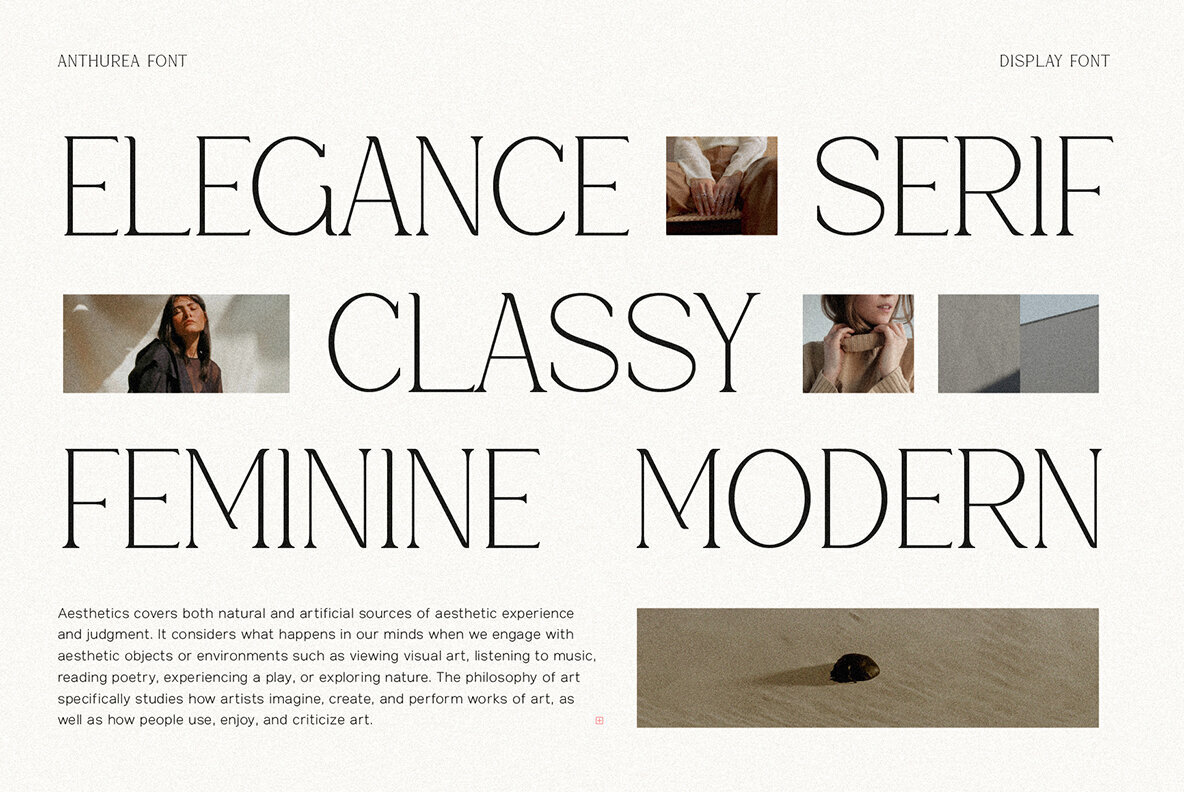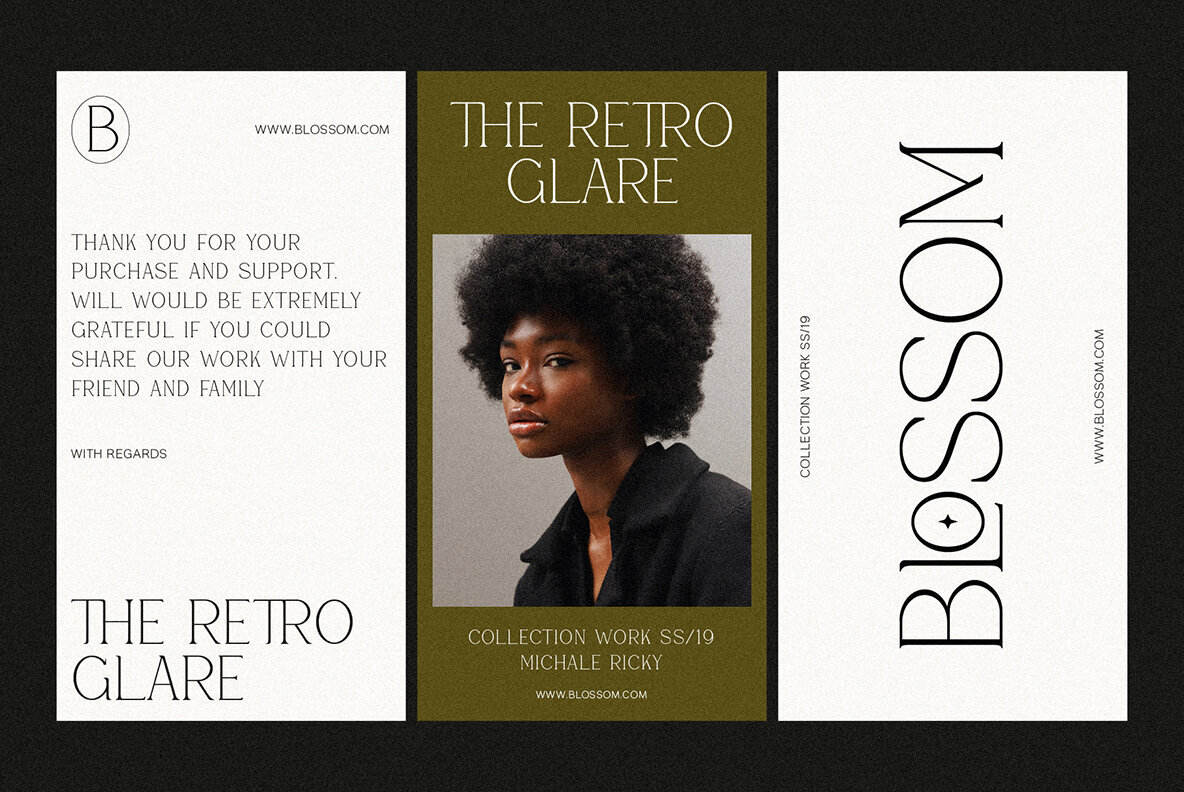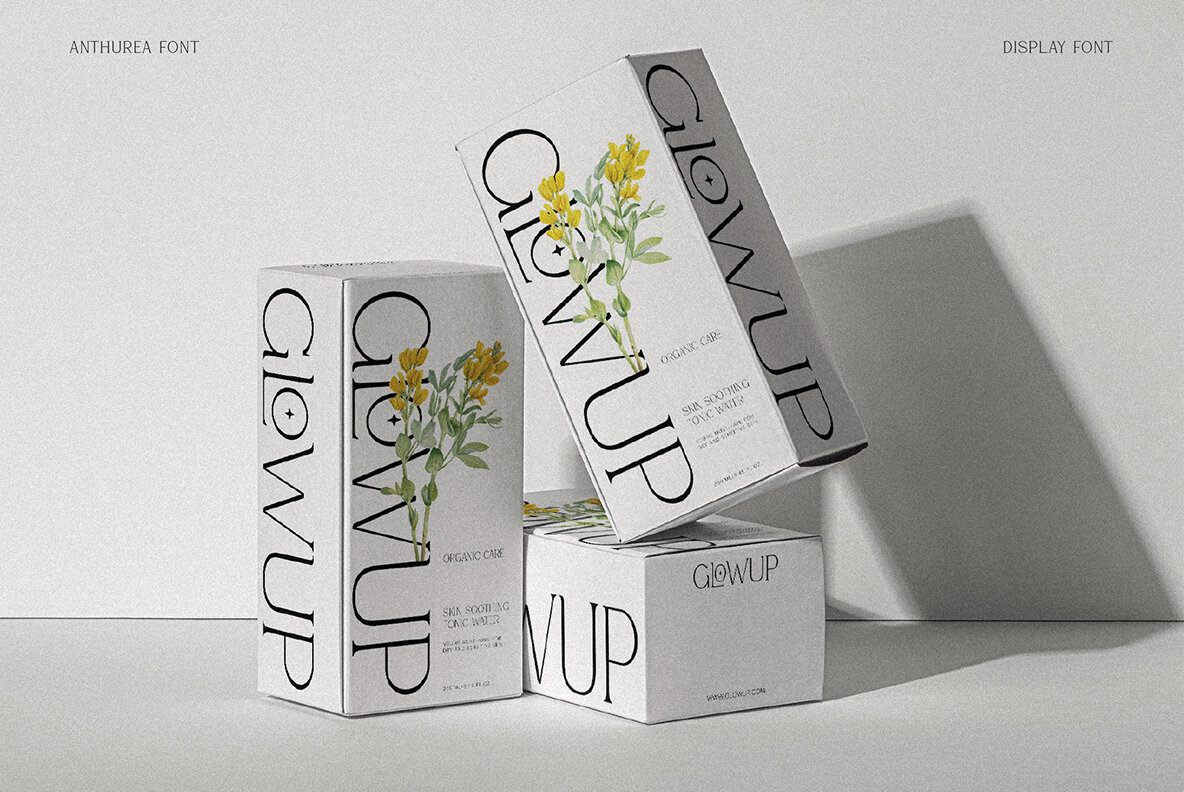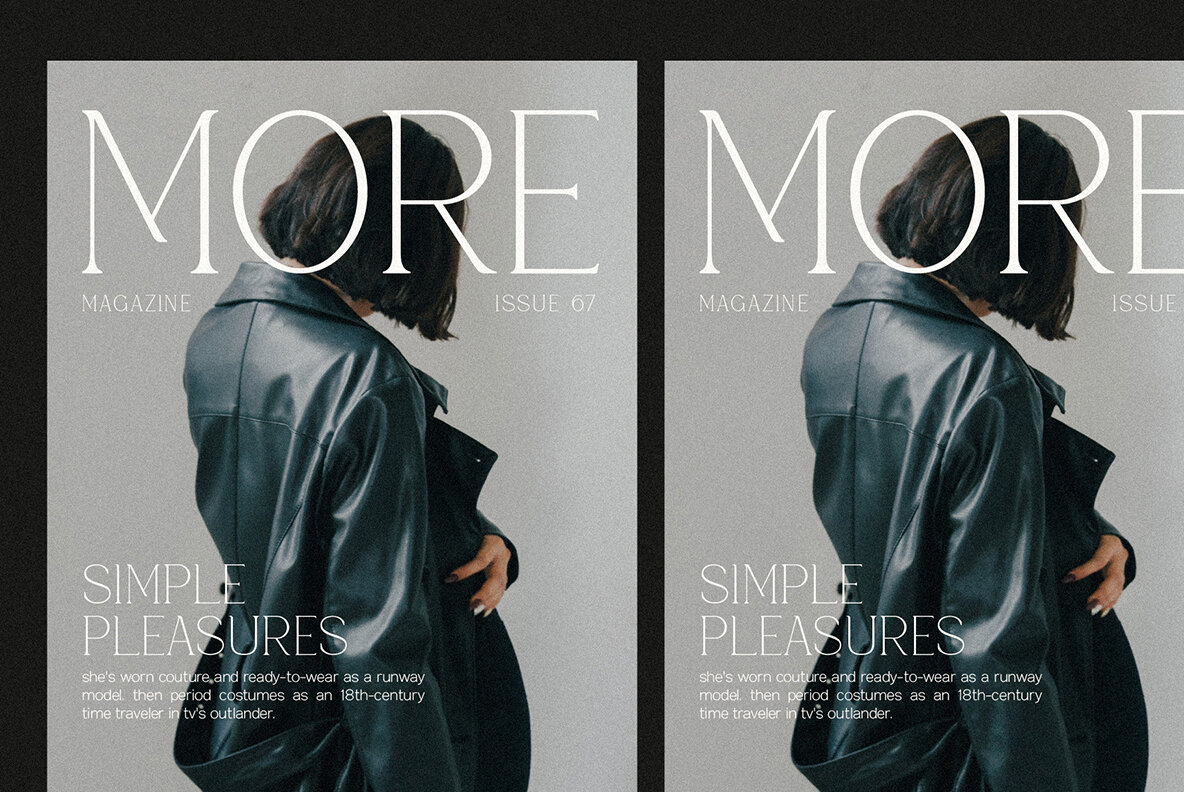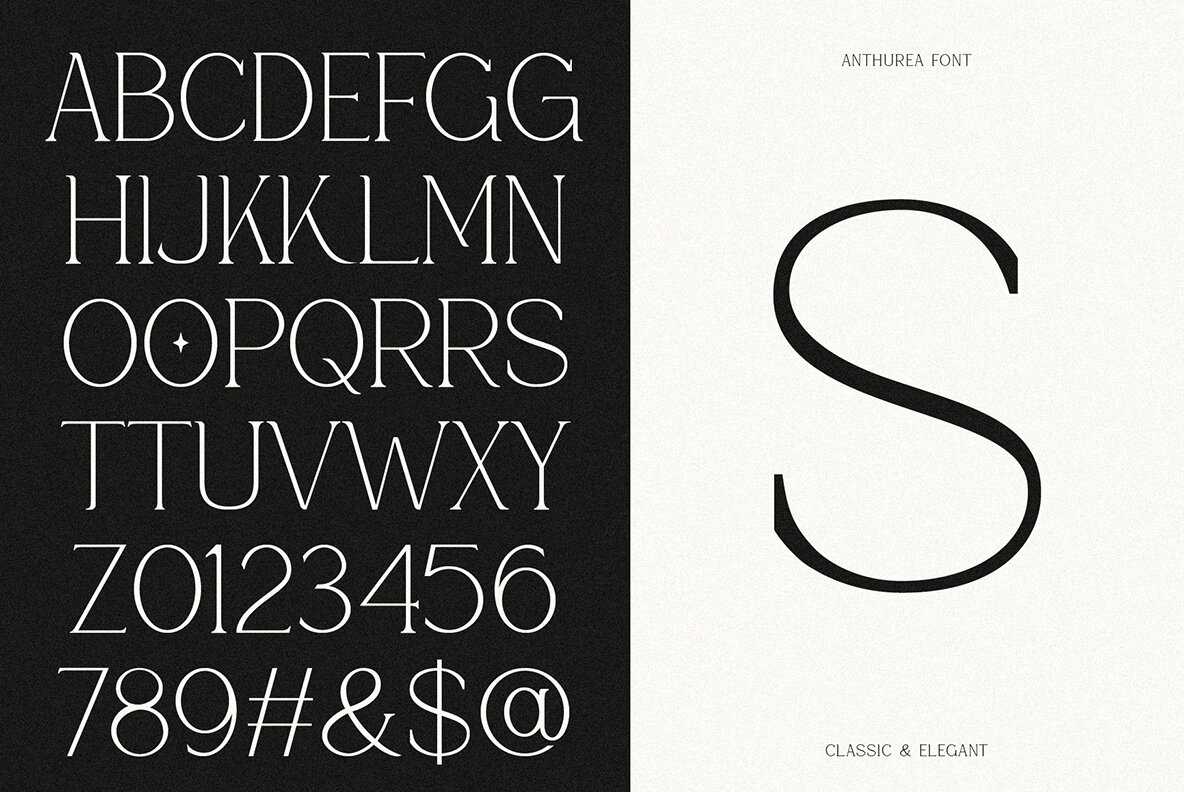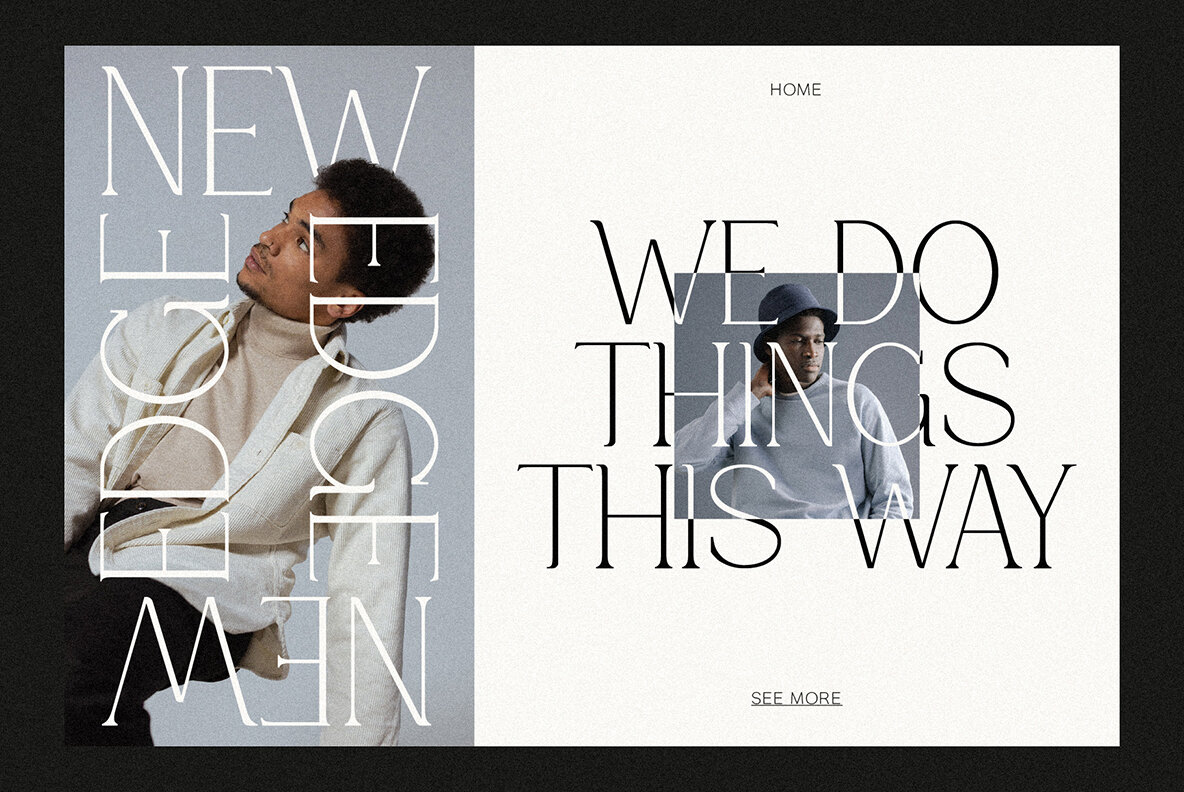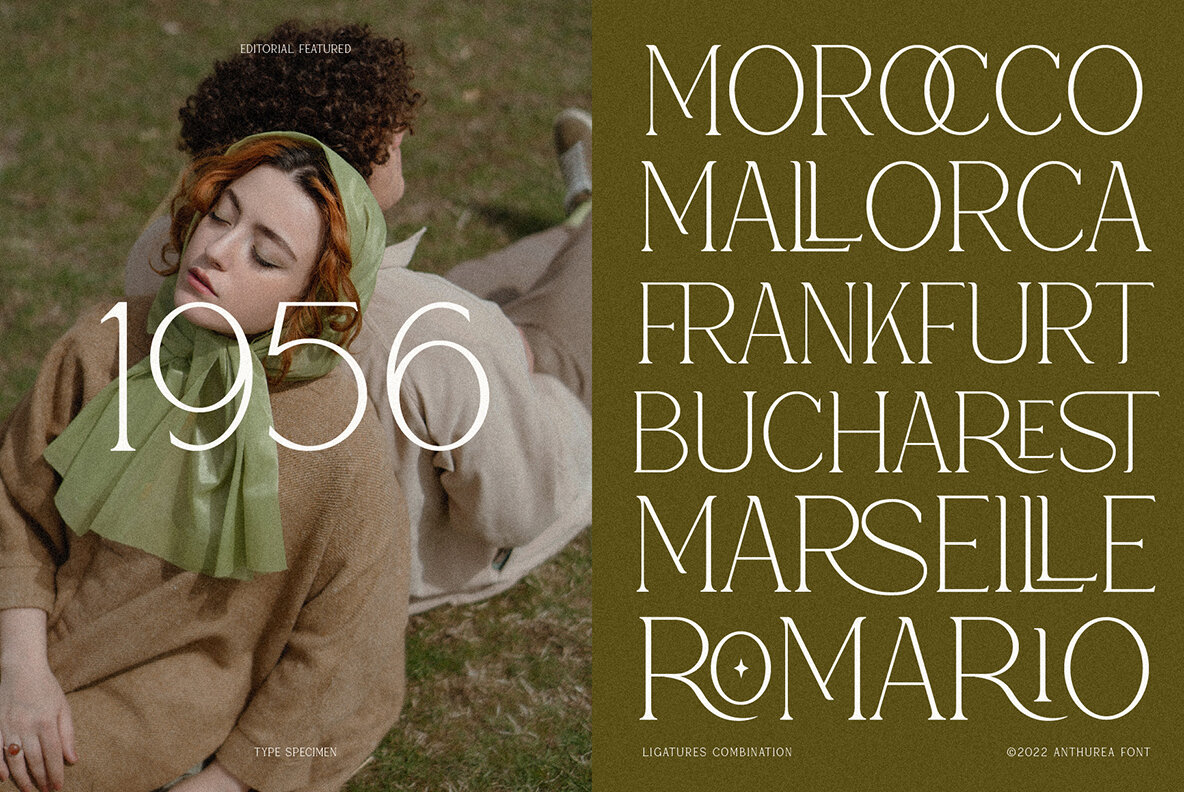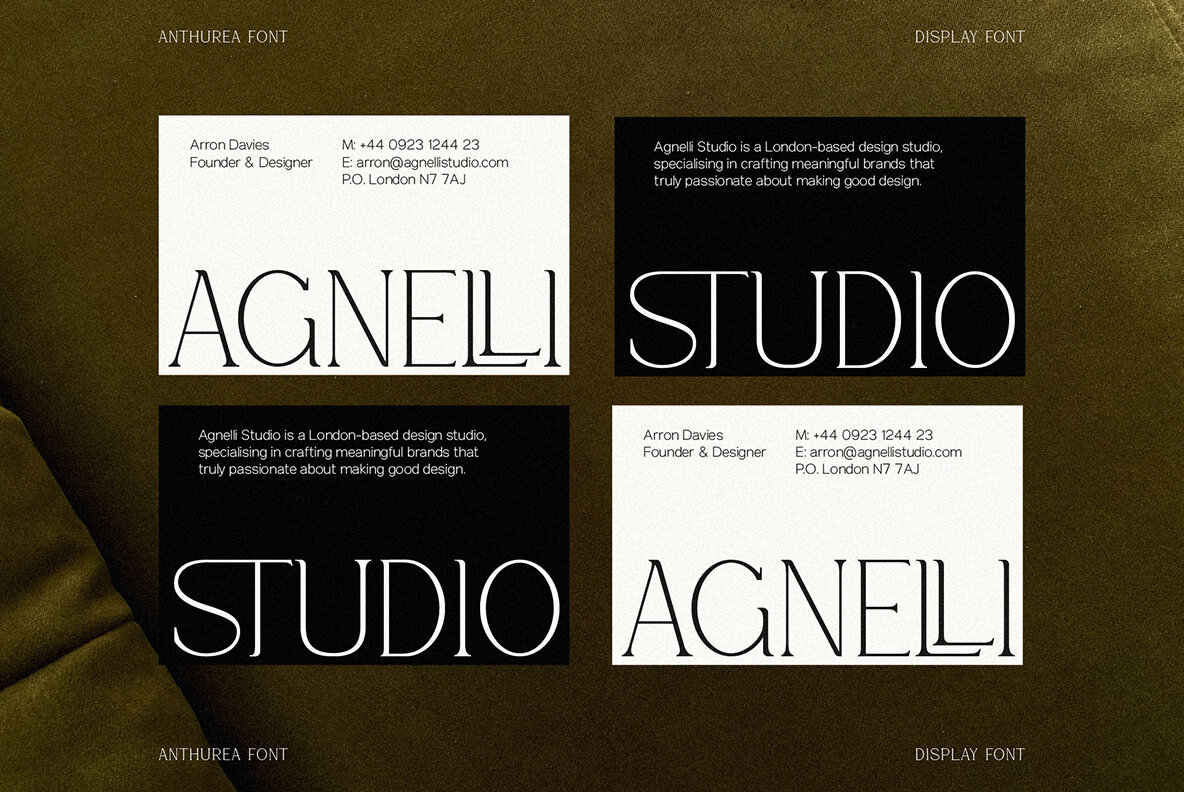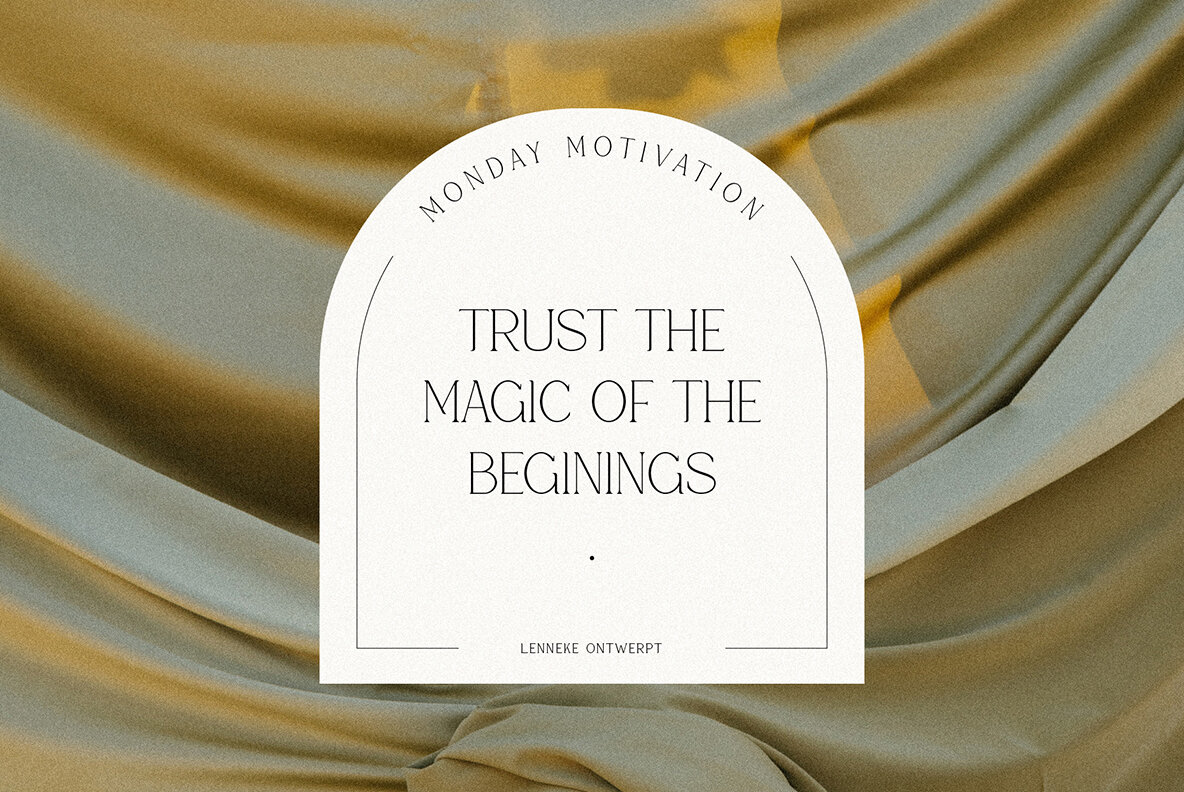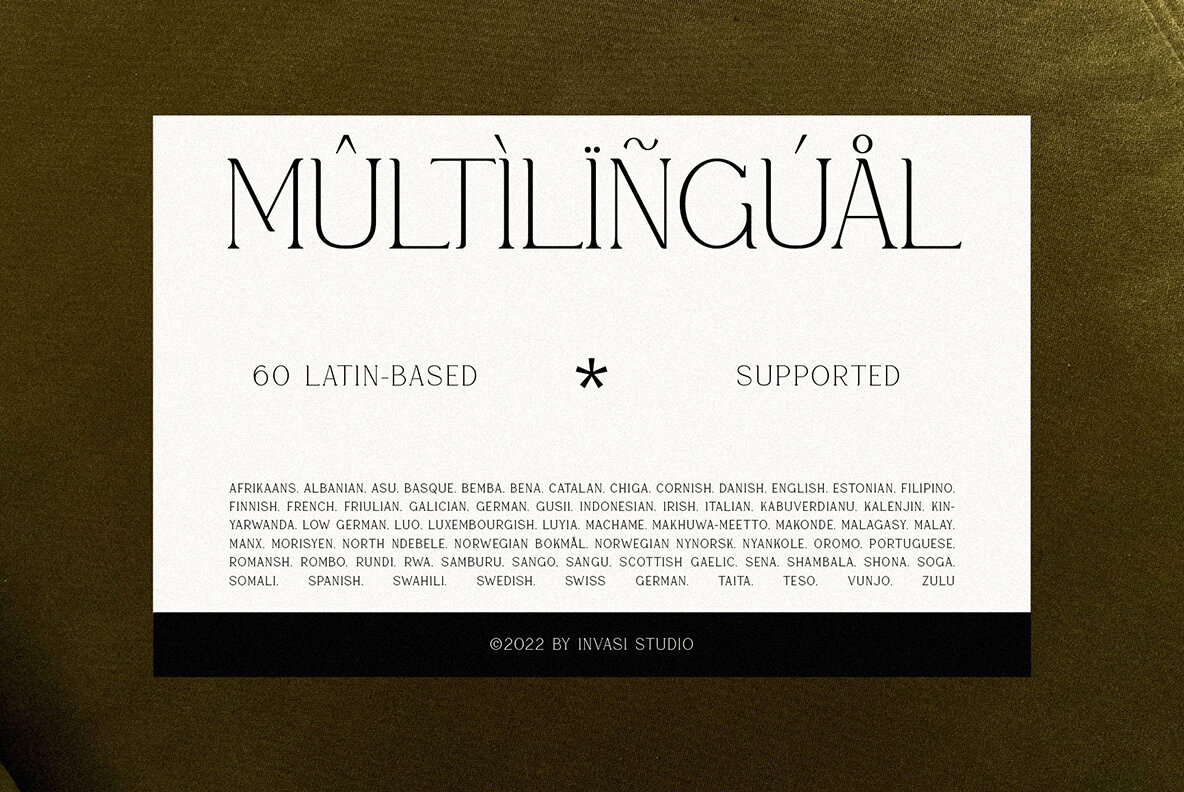
Anthurea Font
Anthurea Regular
Anthurea is a modern classy serif typeface. Featuring an elegant and classic all-caps style, this font reflects the elegance and style of the past. With its modern and minimal treatment, it makes a great starting point as well as an enhancement for your design.
It is perfect for Logotype, printed quotes, invitations, cards, product packaging, headers, Letterhead, Apparel, Web design, magazines, books, etc.